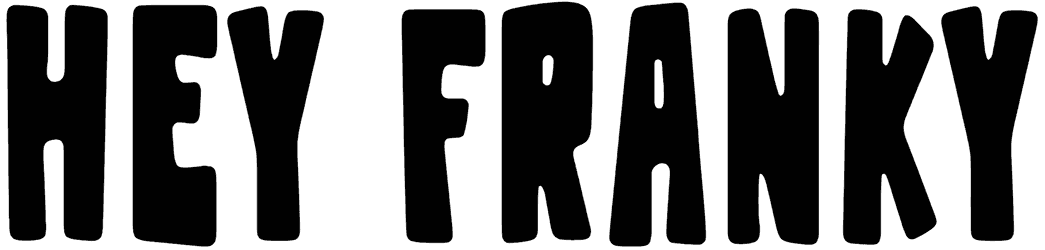
Hey Franky Font
Let’s give a fun style to your artwork, such as movie posters, video game banners, and book illustrations, by utilizing a comic font like Hey Franky. If you don’t consider the lack of lowercase letters and numbers a big deficiency, then you can share a sense of clutter, youth, and dynamism with this font.